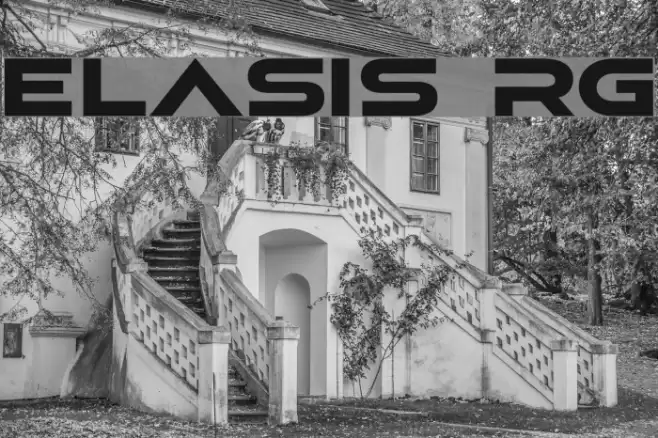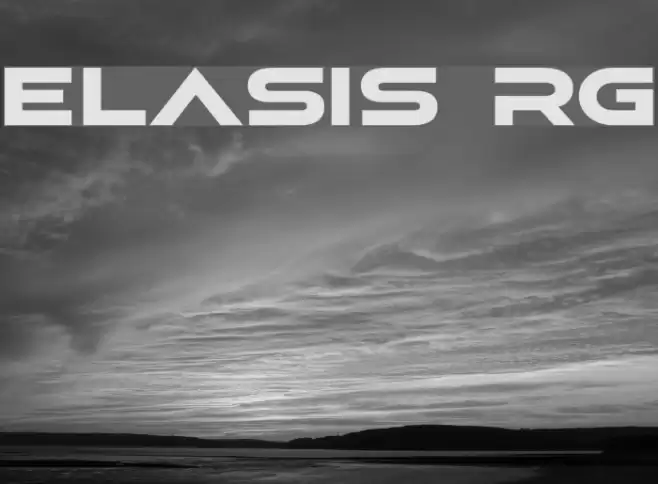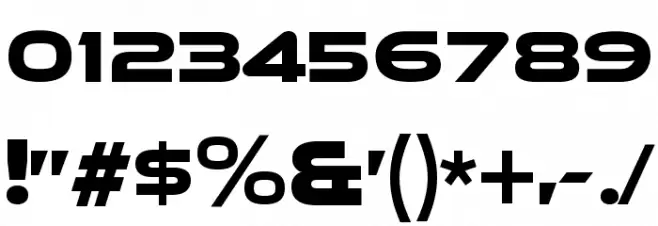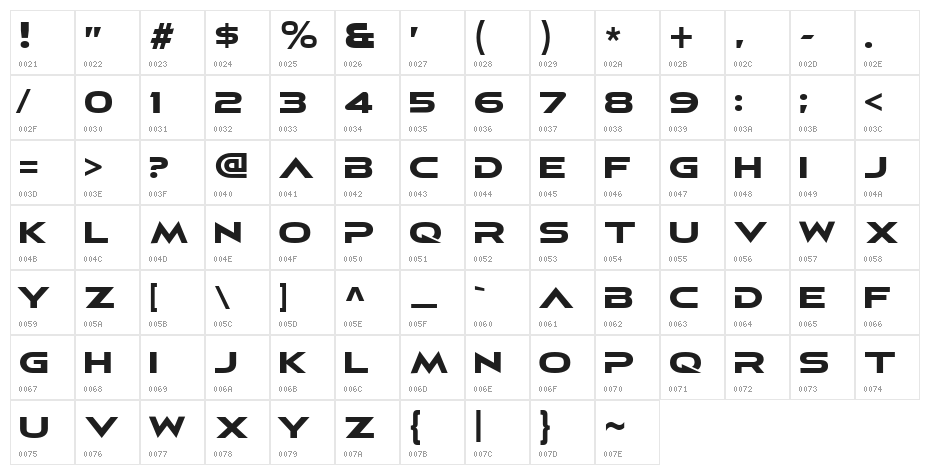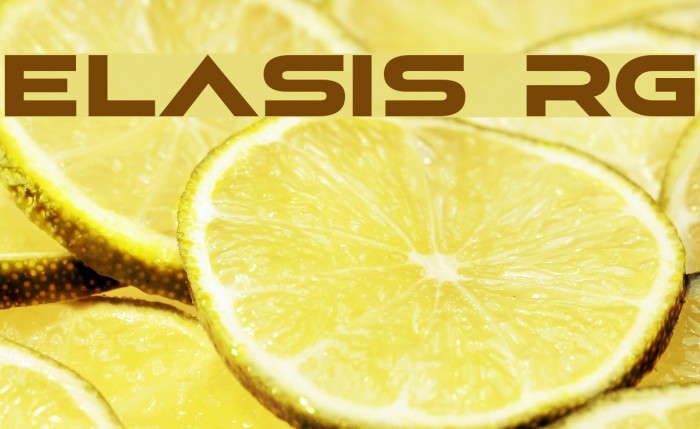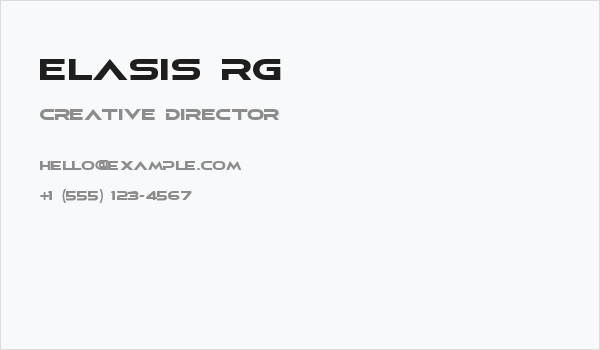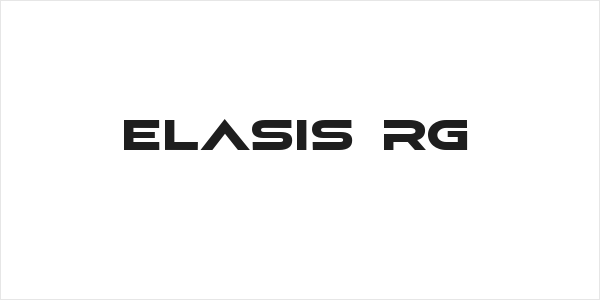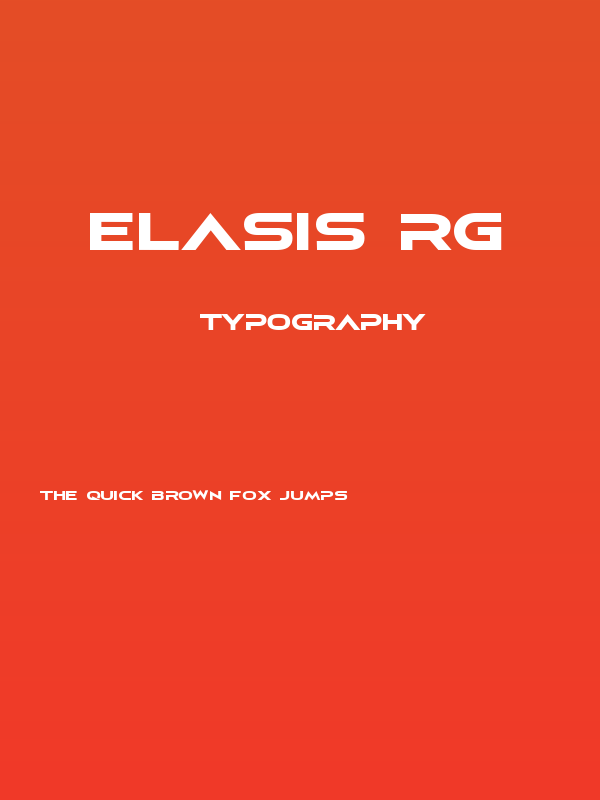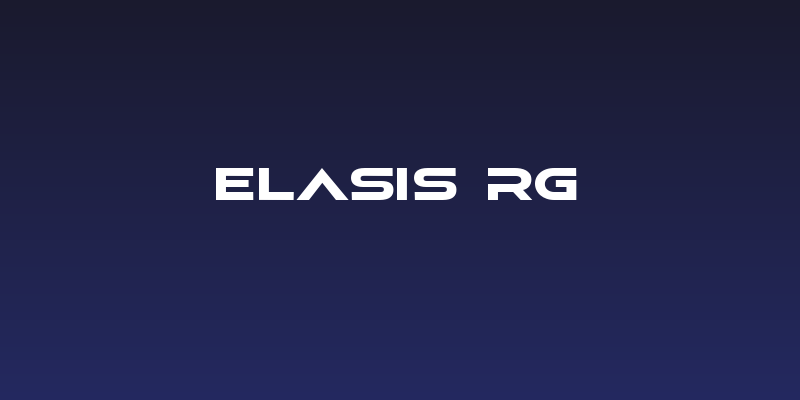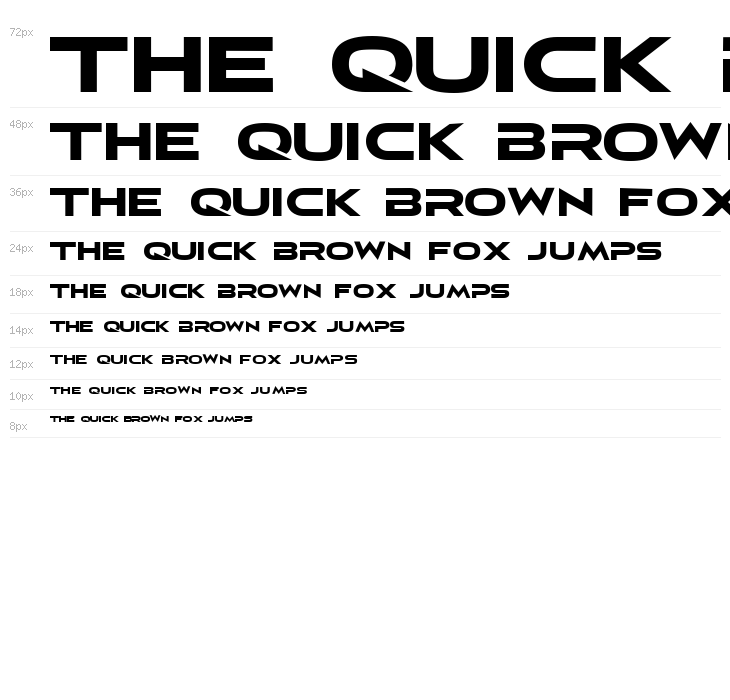
elasis rg Font
elasis rg Description
This font features a bold and futuristic design with sharp, angular edges and a geometric structure. The uppercase letters are particularly striking, with a consistent height and width that give a sense of uniformity and strength. The lowercase letters maintain the same angular style, ensuring a cohesive look across different text cases. Numbers are equally bold and geometric, making them highly legible and impactful. Special characters are designed to match the overall aesthetic, providing a seamless integration into any text. The font's modern and sleek appearance makes it ideal for projects that require a strong visual impact.
A bold, geometric font with a futuristic and angular design from Uncategorized fonts.
- Proposed Projects: Ideal for technology branding, sci-fi themed projects, video game interfaces, and modern advertising campaigns.